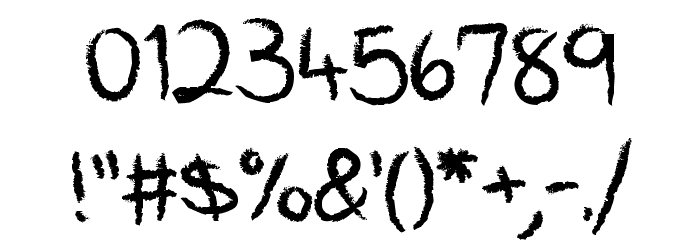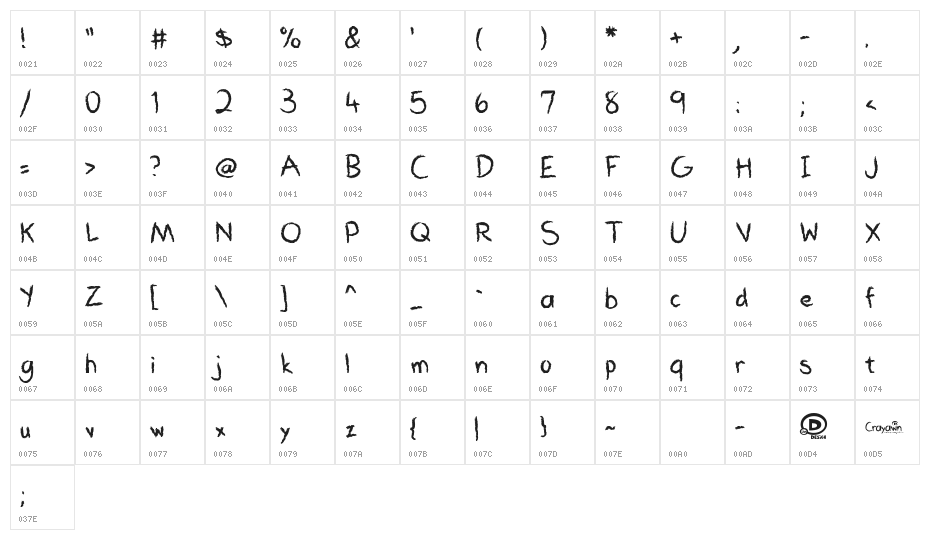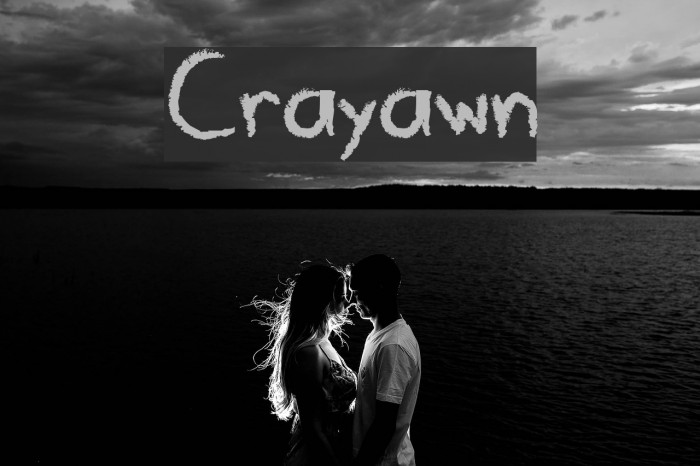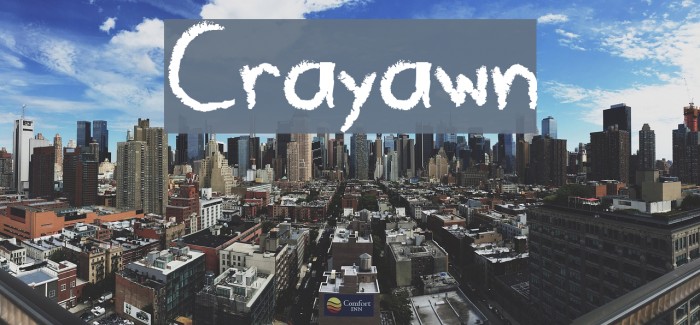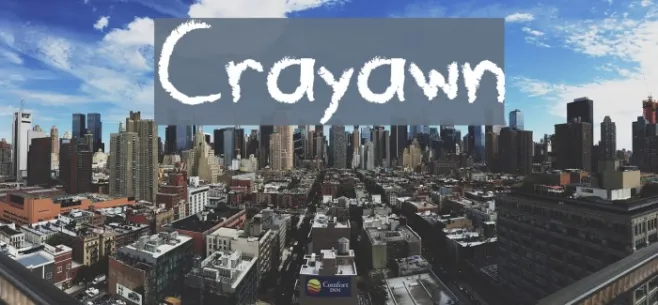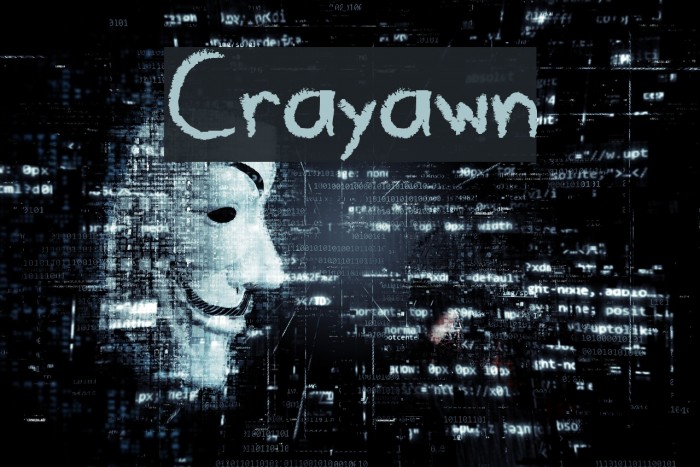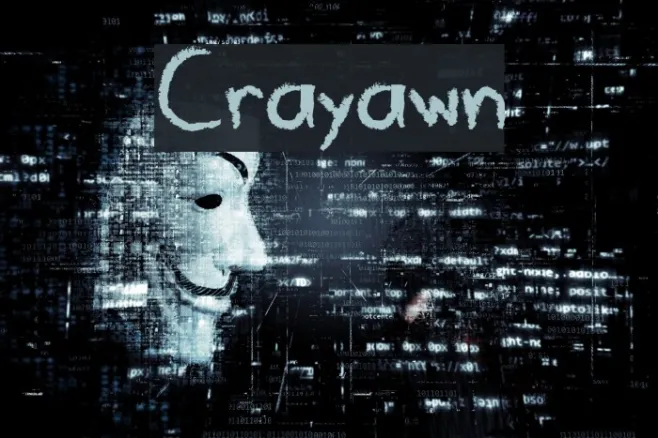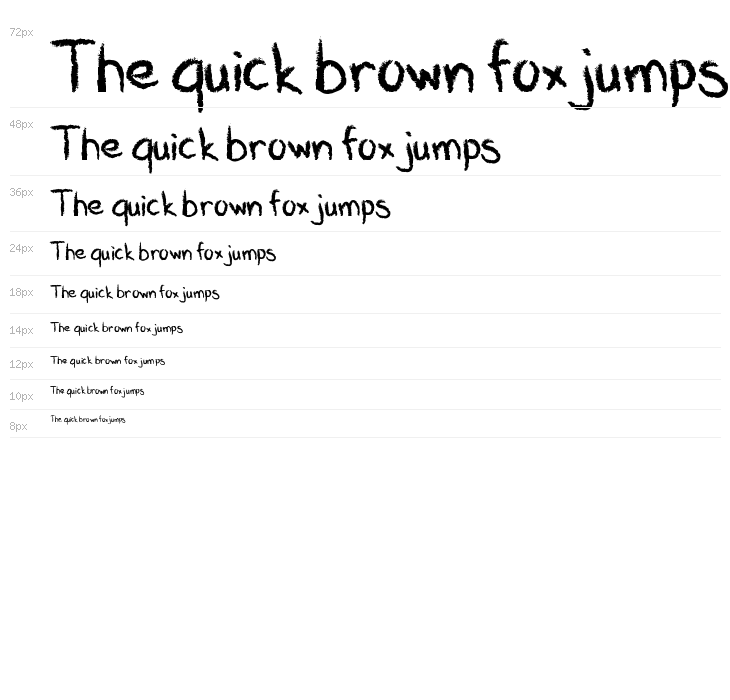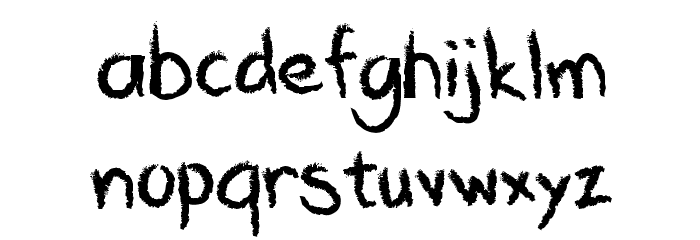
Crayawn Font
Crayawn Description
This font exudes a playful and artistic vibe, reminiscent of hand-drawn chalk or crayon strokes. The characters are uneven and textured, giving a sense of spontaneity and creativity. The uppercase and lowercase letters maintain a consistent style, with slightly irregular edges that add to the handcrafted feel. Numbers and special characters follow the same design, ensuring a cohesive look across all elements. This font is perfect for projects that require a touch of whimsy and individuality, making it ideal for children's books, creative posters, and informal branding.
| Proposed Projects | Children's books, creative posters, informal branding, art projects. |